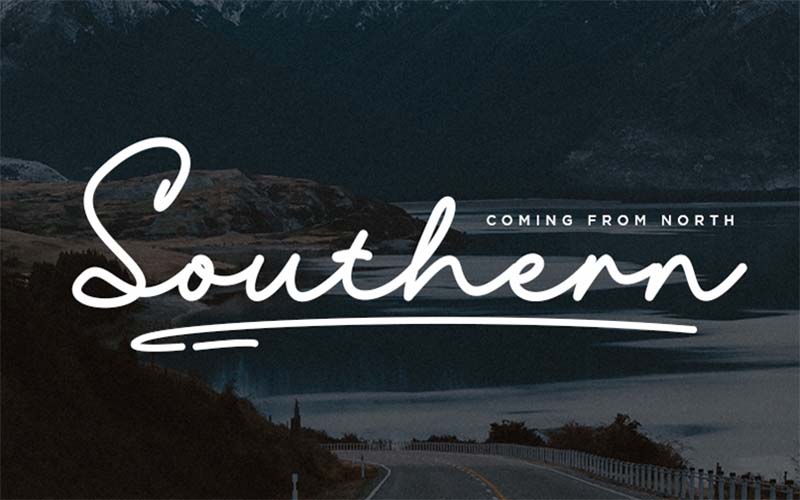
Southern Font is a script handwritten typeface that has a unique and decent texture. This font designer Aditya Rezki Apriyadi took charge of designing and launching it.
This amazing typeface has come in one style with True Type file format. The designer has created it specifically for signature purposes. But in modern times, it will also be useful for many purposes.
This font is suitable for brand logos, titles, signatures, quotes, phrases, unique emblems, printing on cards, printing on t-shirts, shopping bags, book covers, fashion magazines, heading, labels, and much more.
Southern Font
When they are joined together, all the letters are hand-drawn to create a better texture. It gives the design a solid and natural look where it is designed.
In the fonts market, you will also find refined and beautiful typefaces. But it will definitely add a unique touch with a great design that no one else has.